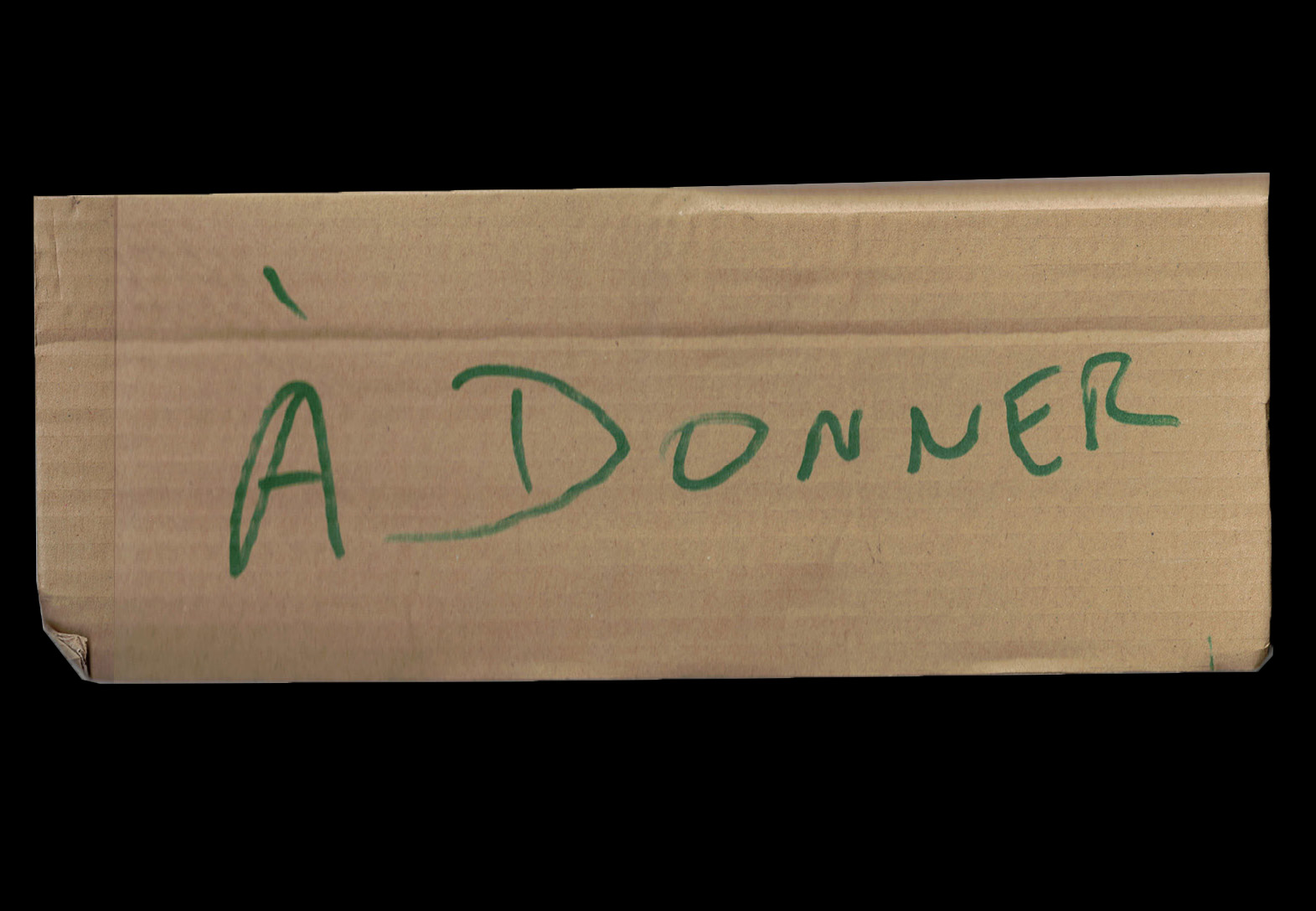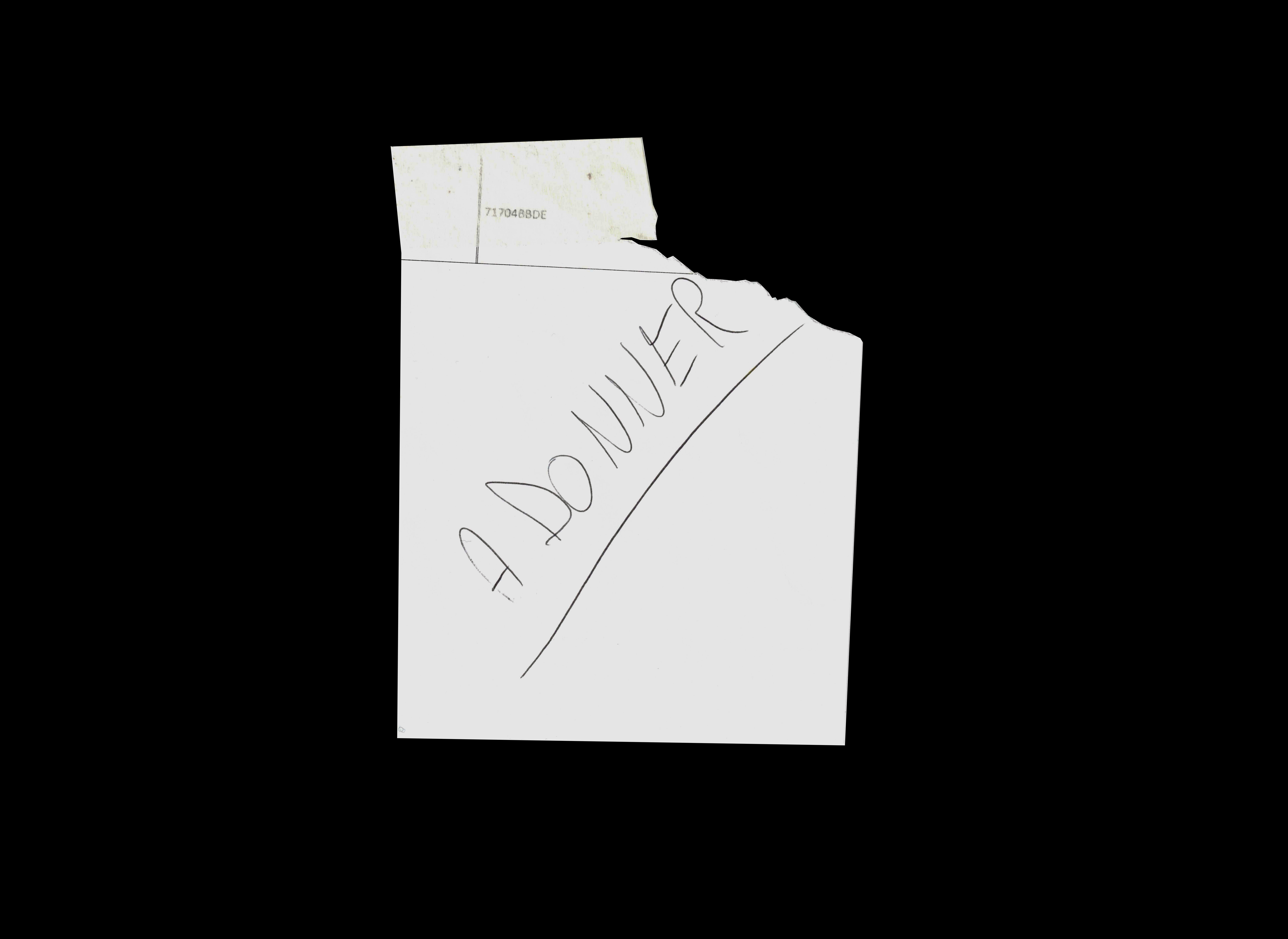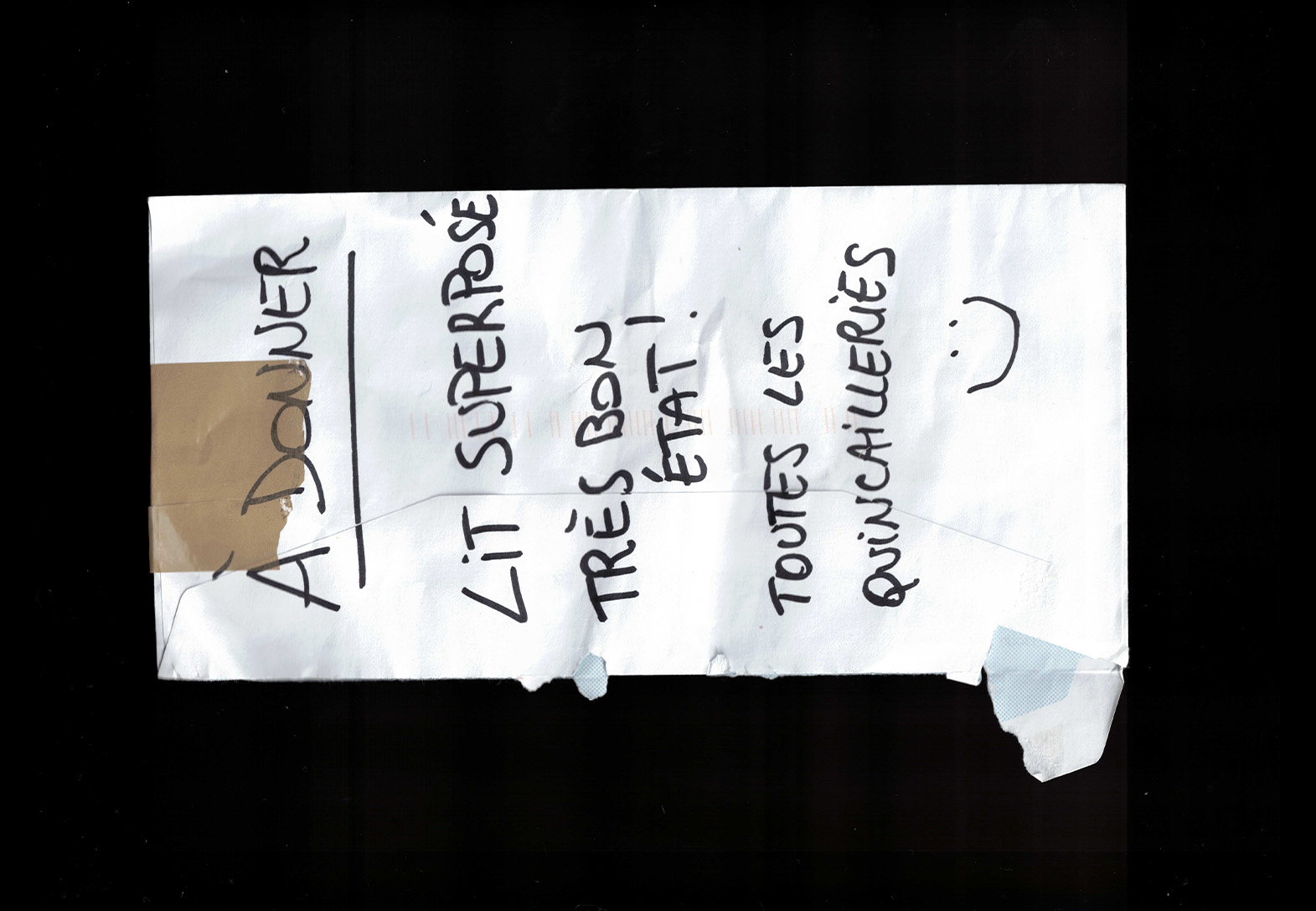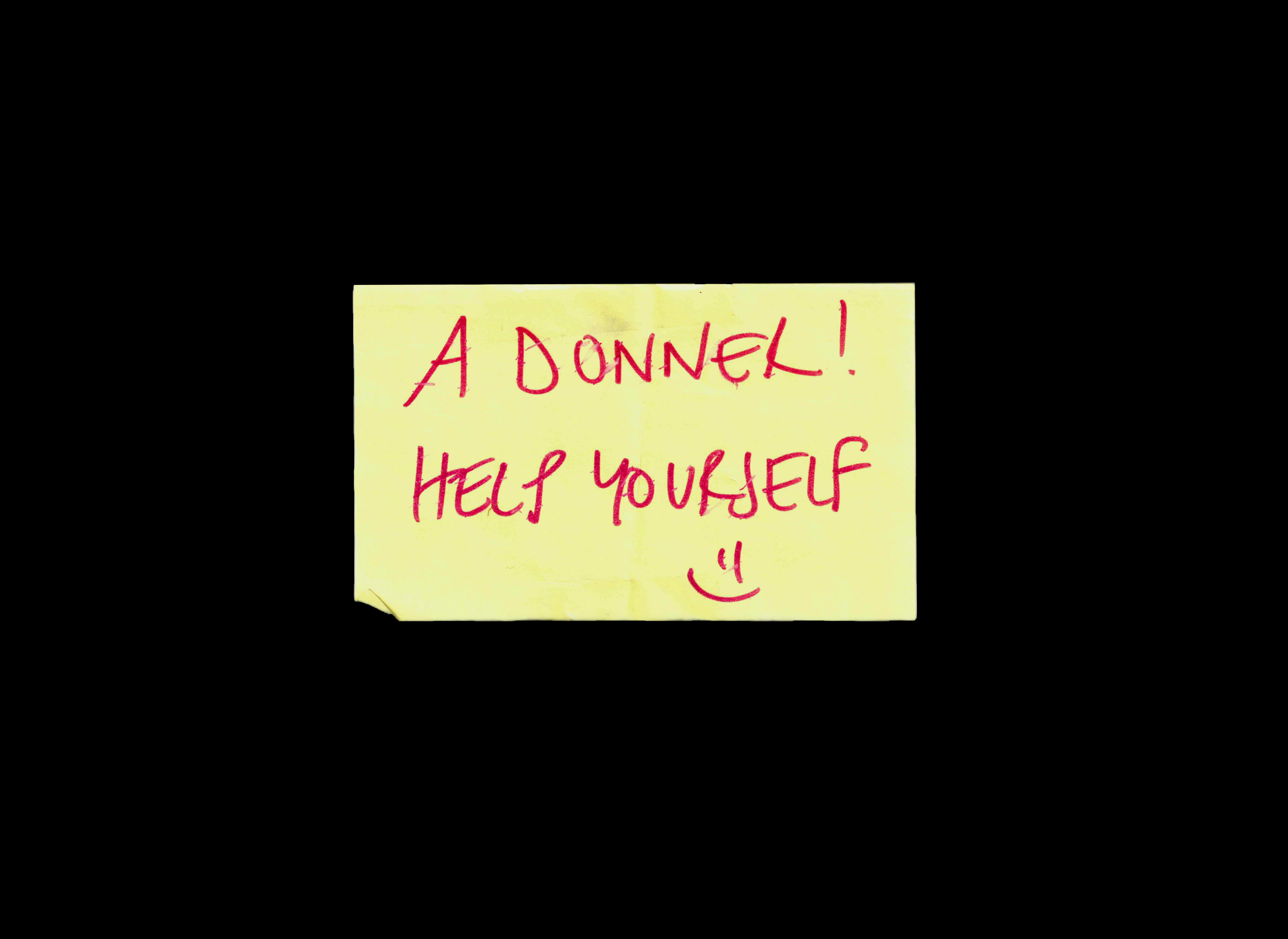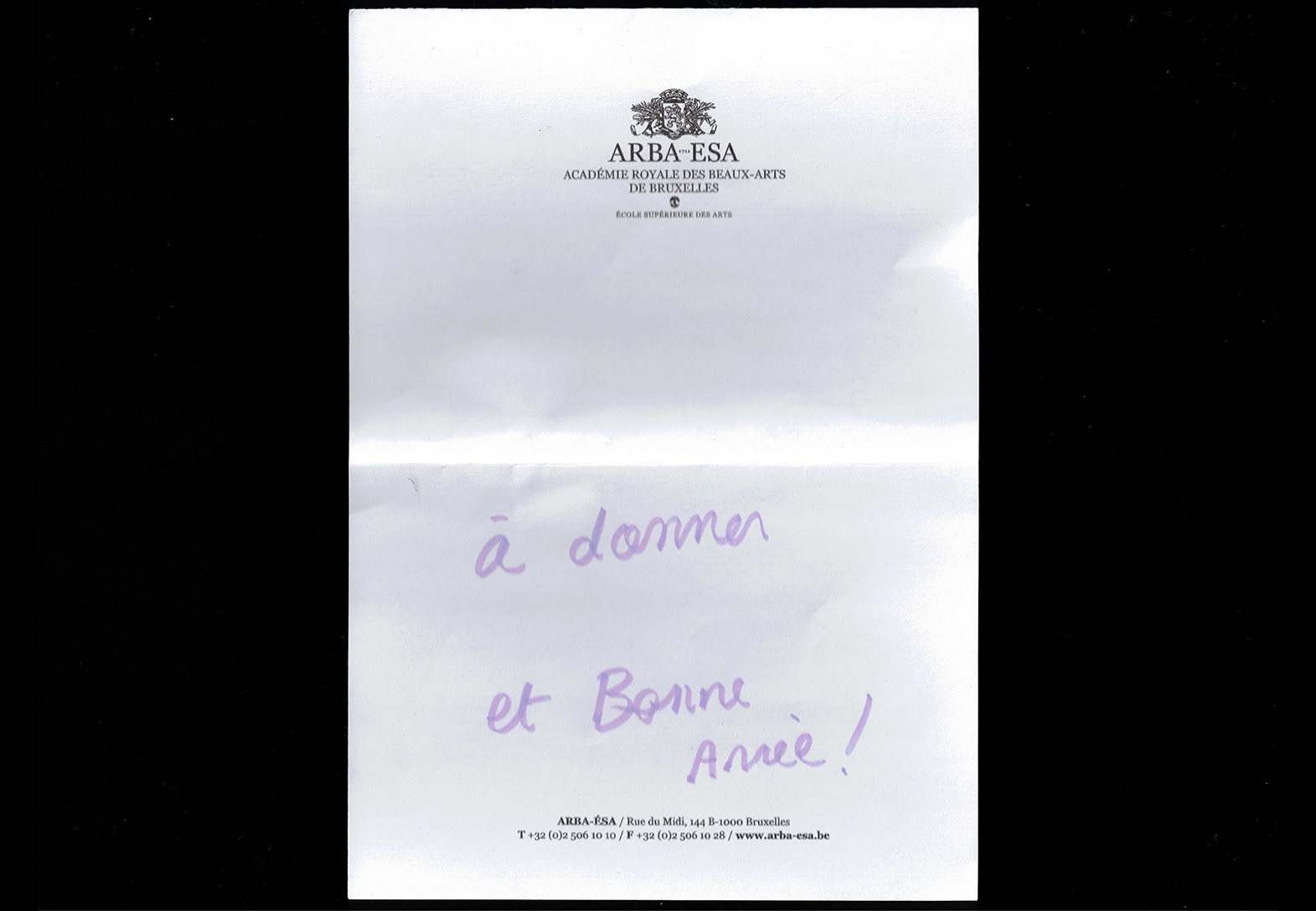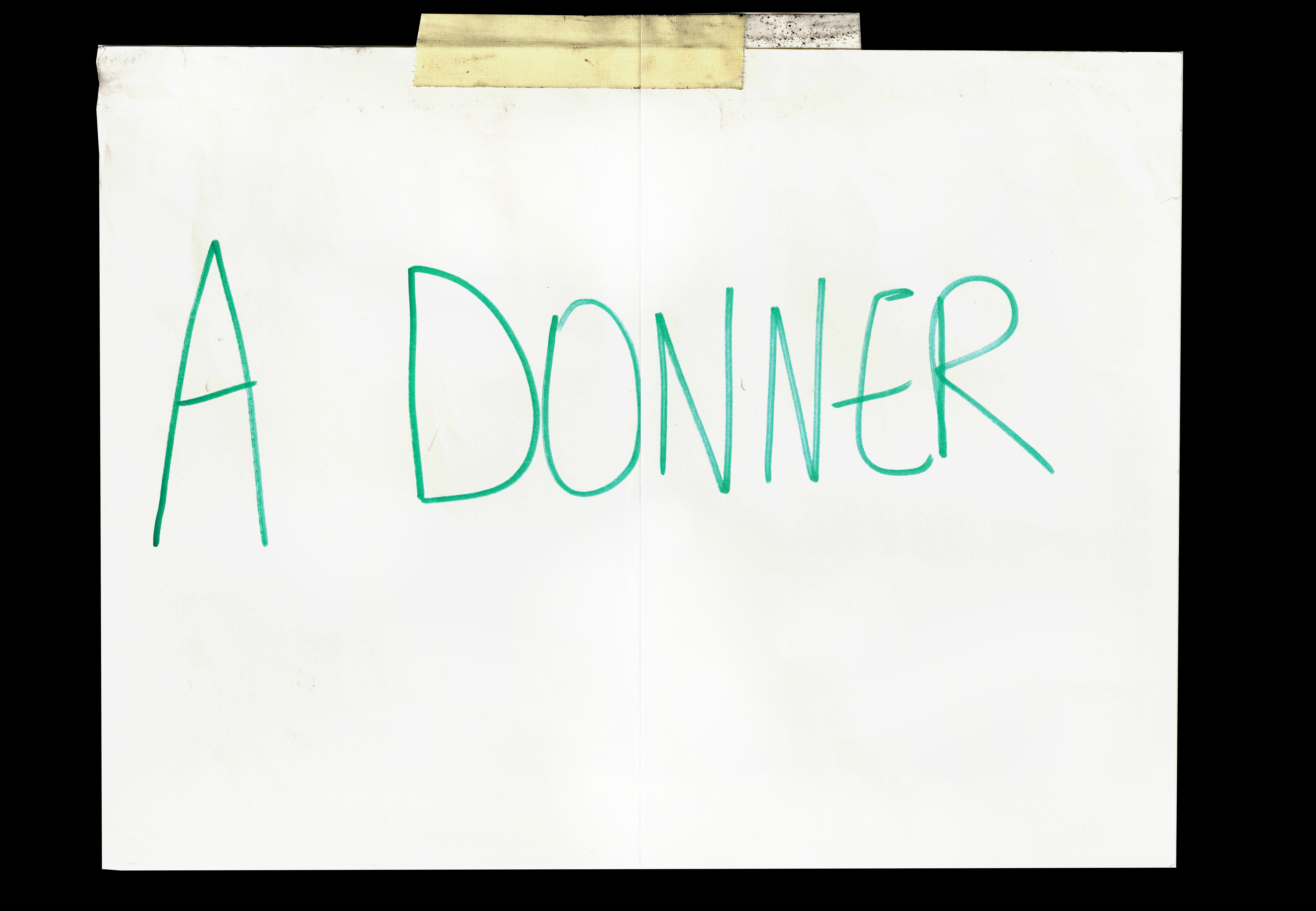
Watercolor on paper (framed)
variable sizes
from 2021 onwards
The gift must be considered a loss and thus as a partial destruction: the desire to destroy being in part carried over onto the beneficiary. In the unconscious forms, such as psychoanalysis describes them, it symbolizes excretion, which itself is tied to death, in accordance with the fundamental connection of anal eroticism and sadism (Bataille, 1970, I,310).
Achilles Mussche (b. 1957, Anderlecht) is a graphist and typographer based in Anderlecht, Brussels. He has spent more than three decades working as a signpainter, restoring and reproducing commercial façades across Brussels, Flanders, and northern France.
Through his former workshop, Letterzetter Mussche, he collaborated with municipalities, archives, and private collectors to document and salvage vernacular lettering marked for demolition.
Mussche describes himself as a wandering graphist. He approaches lettering as a typographic object and as a mode of address—an obsolete but intimate form of (long-distance) conversation. In recent years, he has collected handwritten à donner notes found on the street, copying them in watercolor. The copies function less as archives than as replies, extending a dialogue with anonymous writers of his beloved city, and by extension to with the city itself.